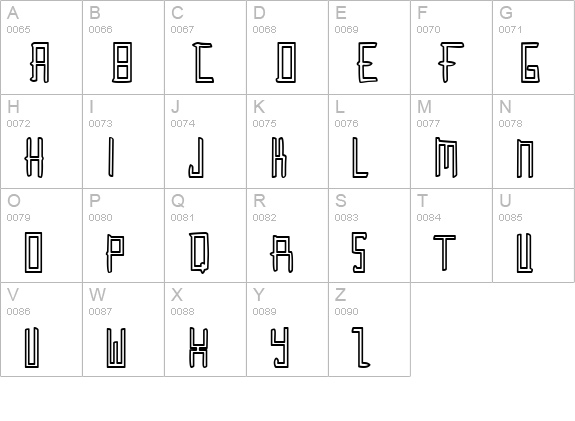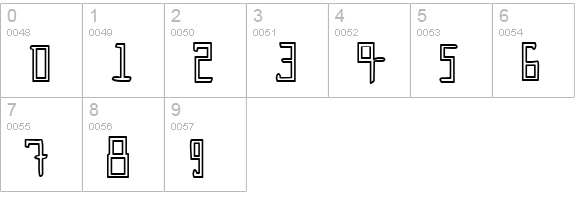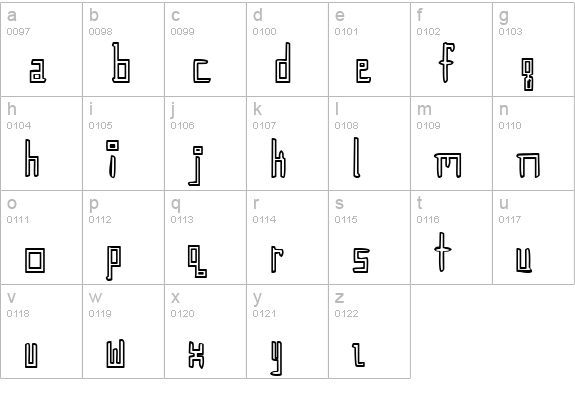
Gunther Font Details
Gunther font is a modern and sophisticated typeface that exudes elegance and style. Its unique design is perfect for adding a touch of class to any project, whether it be a website, logo, or printed material. The sleek lines and sharp edges of Gunther font make it stand out from the crowd and give your text a professional and polished look. What's even better is that Gunther font is completely free to download at FontsMarket.com. This means you can use this stunning font in your designs without having to worry about breaking the bank. So why wait? Download Gunther font today and elevate your projects to the next level with this beautiful typeface.